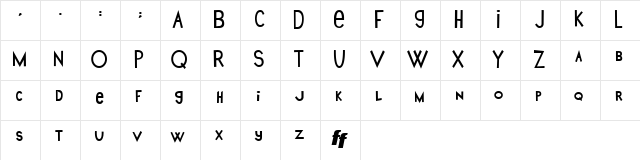
King Anakin 2 Regular
Design Context for King Anakin 2 Typeface
King Anakin 2 offers clean, dependable letterforms without strong stylistic allegiance, making it a practical choice for designers who need flexibility.